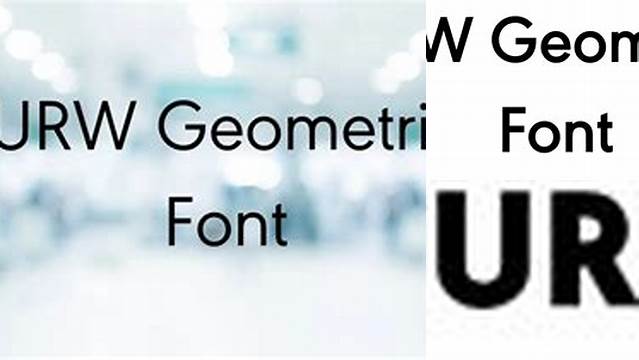
URW Geometric Semibold font, a staple in the world of typography, is a fantastic choice for anyone seeking a clean, modern, and versatile typeface. But where can you get your hands on a URW Geometric Semibold font free download? And more importantly, how can you best utilize this font to elevate your design projects? This comprehensive guide will delve into everything you need to know, from finding a reliable download source to mastering the art of incorporating this elegant font into your work. Get ready, guys, because we're about to embark on a typographic adventure!
1. Discovering the URW Geometric Semibold Font's Essence
So, what exactly makes the URW Geometric Semibold font so special? Well, it's all about its clean lines and geometric construction. This sans-serif typeface, created by URW++, boasts a design that's both modern and timeless. It's the kind of font that seamlessly blends into various design styles, from minimalist websites to professional presentations. The semibold weight offers a perfect balance, providing enough visual weight for readability while maintaining a sleek and contemporary feel. The 'URW' in the name signifies the font's origin, linking it to a reputable type foundry. Its versatility allows it to be used in headlines, body text, and even in branding materials. You can see it on posters, websites, and even in various applications such as Microsoft Office. The consistent stroke weights and clear letterforms contribute to its high legibility. The absence of serifs gives it a modern edge. The character set often includes a wide range of glyphs, supporting multiple languages and offering design flexibility. This font family is known for its excellent kerning and spacing, which greatly enhances the readability of the text. Many designers appreciate it for its ability to create a sense of order and clarity. The design of this font focuses on clarity and simplicity, making it an ideal choice for communicating information efficiently. Therefore, with its geometric and modern design, you can clearly see that it is a great choice for a wide range of design projects.